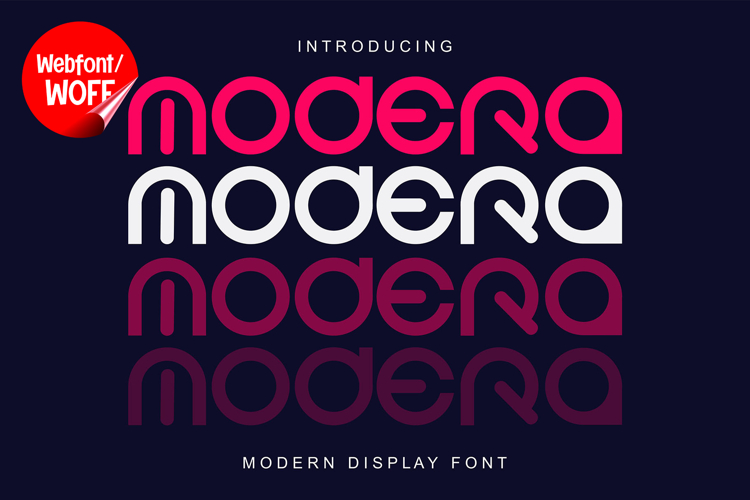
Modera | Futuristic Display Logotype Webfont for Modern Web
Modera is a futuristic display logotype webfont designed to bring a sleek, modern, and forward-thinking aesthetic to website design. With its clean geometry and sharp, contemporary letterforms, this font delivers a strong visual identity that fits perfectly within digital environments. It is an excellent choice for projects that aim to communicate innovation, technology, and a modern brand presence.
Modera features a complete set of uppercase characters designed with a futuristic and minimal approach. The letterforms are structured with clean lines and balanced proportions, making them ideal for logotypes, headlines, banners, and hero sections. The modern style creates a strong visual hierarchy, helping important content stand out while maintaining a polished and professional look.
In addition to letters, Modera includes numbers and punctuation, allowing it to be used across a variety of website elements. It works effectively for product displays, navigation menus, promotional content, and informational sections. Each character is designed to maintain consistency, ensuring a cohesive visual identity throughout the layout.
With multilingual support, Modera includes a wide range of accented characters, making it suitable for international websites and global brands. This allows content to be presented clearly across different languages while maintaining the same futuristic and modern design style. It is a practical option for businesses and creative projects with diverse audiences.
The display logotype style of Modera makes it especially suitable for technology websites, startup platforms, digital agencies, portfolios, and branding-focused projects. Its futuristic design adds a sense of innovation and sophistication, helping websites stand out in competitive digital spaces. The clean and structured appearance also makes it adaptable for various modern design trends.
Despite its stylized and futuristic look, Modera is designed with readability in mind. The spacing and proportions are carefully balanced to ensure clarity, especially when used in display sizes. This makes it effective for bold headings and key visual elements without compromising usability.
Modera is a webfont that combines futuristic aesthetics with modern functionality. Its clean lines, geometric structure, and refined style create a distinctive typographic presence that enhances website design. For projects that require a modern, innovative, and professional visual identity, Modera offers a strong and reliable typographic solution.